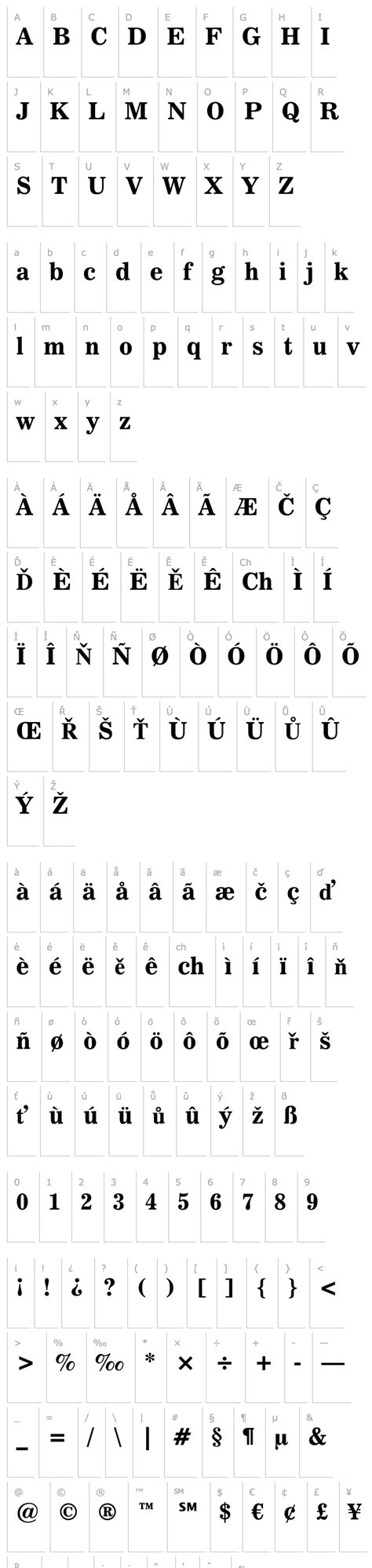
INews 706 BT Bold C Font: A Comprehensive Guide
Hey everyone! Today, we’re diving deep into the iNews 706 BT Bold C Font . This isn’t just any font; it’s a powerful tool that can dramatically change the look and feel of your projects. Whether you’re a graphic designer, a web developer, or just someone who loves to tinker with typography, understanding the nuances of a font like this is key. We’ll explore its characteristics, its best use cases, and how you can leverage its bold, distinctive style to make your content pop. Get ready to elevate your design game, guys!
Understanding the iNews 706 BT Bold C Font
The iNews 706 BT Bold C Font is, as the name suggests, a bold typeface. But what does ‘bold’ really mean in the context of fonts, and what makes this particular font stand out? Bold fonts are characterized by thicker strokes compared to their regular or light counterparts. This increased weight makes them highly visible and attention-grabbing. The ‘BT’ in the name often refers to a specific foundry or style, and ‘C’ might denote a character set or a variation. When we talk about the iNews 706 BT Bold C Font, we’re looking at a typeface designed for impact. Its substantial weight ensures that headlines, titles, and important call-to-actions are noticed immediately. This isn’t a font you’d typically use for long blocks of body text, as its boldness can make it tiring to read in large quantities. Instead, its strength lies in its ability to convey authority, strength, and importance. Think of it as the font equivalent of a booming voice in a quiet room – it commands attention. The design specifics, like the exact curvature of the letters, the spacing between them (kerning), and the overall x-height (the height of lowercase letters like ‘x’), all contribute to its unique personality. This font likely possesses strong, clear letterforms, making it highly legible even at smaller sizes when used strategically. Its boldness isn’t just about thickness; it’s about the presence it lends to any text. It can evoke a sense of modernity, sophistication, or even a retro feel, depending on the surrounding design elements. Understanding these fundamental characteristics is the first step in mastering its application. We’ll break down its aesthetic qualities and explore how to best harness its power.
Key Features and Characteristics
Let’s get down to the nitty-gritty of the iNews 706 BT Bold C Font . What makes it tick? First off, the boldness is its defining feature. This isn’t a subtle hint of weight; it’s a pronounced, confident stroke that demands attention. This makes it absolutely perfect for headlines, subheadings, logos, and any short bursts of text where you need maximum impact. Imagine a poster for a rock concert or a sale announcement – this font would nail it. Beyond the weight, we need to consider its design style . Is it a serif font with little feet on the letters, or a sans-serif font with clean, modern lines? The ‘BT’ and ‘C’ might hint at this, but generally, a bold font like this often leans towards a sans-serif style for a contemporary feel, though a bold serif can bring a classic, powerful vibe. We’ll assume for now it has a strong, clear structure. Another crucial aspect is legibility . Even though it’s bold, a well-designed font remains readable. The iNews 706 BT Bold C Font likely has well-defined letterforms and appropriate spacing to prevent it from becoming a blurry mass, especially when viewed on screens. The character set (‘C’ could refer to this) is also important. Does it include all the necessary punctuation, numbers, and special characters you need? A comprehensive character set ensures you can use the font across various applications without issues. The versatility of a bold font, while seemingly limited to impactful statements, can be surprising. It can be paired with lighter, more delicate fonts to create strong contrasts, or used in a monochromatic design to add depth and hierarchy. Think about its personality . Does it feel serious and professional, or more playful and energetic? This personality is shaped by the subtle curves, sharp edges, and overall proportions of the letters. Understanding these characteristics helps you choose the right font for the right job. We’re talking about a font that’s not just about looks, but about the message and feeling it conveys. It’s a tool that, when used correctly, speaks volumes without saying a word.
Where to Use the iNews 706 BT Bold C Font
Alright guys, now that we know what the iNews 706 BT Bold C Font is all about, let’s talk about where you can best put this beast to work. This font screams impact and visibility , so naturally, its prime real estate is anywhere you need to grab eyeballs instantly. Think headlines and titles for websites, blogs, magazines, and newspapers. When you want your article title or a key product name to jump off the page (or screen!), this bold font is your best friend. It creates an immediate focal point, guiding the reader’s eye exactly where you want it. It’s also fantastic for subheadings . Breaking up longer pieces of text with strong subheadings makes your content more scannable and digestible, and the iNews 706 BT Bold C Font does this job with authority. On the web , this font is a winner for call-to-action buttons (like “Buy Now!” or “Sign Up!”) and promotional banners . The boldness ensures these crucial elements aren’t missed, driving engagement and conversions. For branding and logos , a bold font like this can convey strength, reliability, and a modern aesthetic. Imagine a tech startup or a fitness brand using this font – it instantly communicates power and dynamism. Print design also benefits immensely. Posters, flyers, book covers, and packaging can all leverage the visual punch of the iNews 706 BT Bold C Font to make a strong first impression. It’s especially effective for event promotion – think concerts, festivals, or sporting events where you need energy and excitement. However, it’s crucial to remember its limitations. This isn’t your go-to font for lengthy paragraphs of text. Reading blocks of bold text for an extended period can be fatiguing for the eyes. So, use it wisely! Its magic lies in its strategic application. Pair it with a lighter, more readable font for body copy to create a beautiful typographic contrast. This interplay between bold and light, strong and subtle, is what creates professional and aesthetically pleasing designs. So, whether you’re designing a minimalist website or a high-energy print ad, the iNews 706 BT Bold C Font is a versatile powerhouse waiting to make your message unmissable.
Pairing the iNews 706 BT Bold C Font with Other Fonts
Okay, so you’ve got this awesome iNews 706 BT Bold C Font , and you know it’s great for making a statement. But here’s the kicker, guys: its real power often comes alive when you pair it with other fonts . Using just one font, even a great one, can sometimes feel a bit one-dimensional. The secret sauce to incredible typography is contrast . When you pair the bold, attention-grabbing iNews 706 BT Bold C Font with something more subtle, you create a visual hierarchy that guides the reader’s eye and adds a professional polish to your design. So, what kind of fonts work well with this bold character? Generally, you want to look for fonts that offer a distinct contrast. Clean, simple sans-serif fonts in a regular or light weight are often a fantastic choice. Think of fonts like Open Sans, Lato, or Montserrat (in their lighter variants). These fonts provide excellent readability for body text, allowing the iNews 706 BT Bold C Font to shine in headlines without competing for attention. The simplicity of the lighter font allows the boldness and personality of the iNews 706 BT Bold C Font to stand out even more. Another excellent pairing strategy is to use a classic serif font . While the iNews 706 BT Bold C Font might be modern and bold, a traditional serif font (like Garamond or Times New Roman, used judiciously) can add a touch of elegance and timelessness. This creates a dynamic contrast between modern boldness and classic sophistication. Just make sure the serif font you choose isn’t too ornate, or it might clash. For a more adventurous pairing, consider a script or handwritten font for accent text or small decorative elements. The contrast here is between the strong, structured boldness of the iNews 706 BT Bold C Font and the fluid, organic nature of a script. This can work well for invitations or special announcements, but use it sparingly to maintain clarity. The key principle is contrast in weight, style, and mood . Don’t pair two fonts that are too similar, or your design might fall flat. Always ask yourself: does this pairing enhance readability? Does it create visual interest? Does it help tell the story of my content? Experimentation is key here. Try out different combinations and see what feels right for your project. Remember, the iNews 706 BT Bold C Font is the star of the show for your key messages; the supporting fonts should complement, not compete. Get creative, guys, and watch your designs transform!
Tips for Optimal Use and Legibility
Alright, fam, we’ve covered a lot about the iNews 706 BT Bold C Font , from its features to how to pair it. Now, let’s nail down some pro tips to ensure you’re using it like a total boss and keeping things super legible. First things first: respect the boldness . This font is loud and proud, so don’t try to shout over it with more boldness. Use it for emphasis, not for everything. Overusing it, especially for body text, is a surefire way to make your content unreadable and give your audience a headache. Think of it like a spice – a little goes a long way to add flavor; too much and it’s inedible! Seriously, guys, resist the urge to make everything bold. Secondly, consider your medium . Is it a giant billboard? A tiny smartphone screen? The iNews 706 BT Bold C Font might look killer on a large print ad, but on a small mobile interface, it might become clunky or even unreadable if the design isn’t optimized. Always test your design across different devices and sizes to ensure legibility. Web designers, pay attention! Ensure your CSS is correctly rendering the font and its weight. Another crucial tip is kerning and tracking . Kerning is the space between specific pairs of letters (like ‘AV’), while tracking is the overall letter spacing in a word or line. Even the best bold font can look awkward if the spacing is off. You might need to manually adjust the kerning for headlines using this font to make them look perfectly balanced and professional. Don’t just let the default settings rule your life! Hierarchy is your friend . Use the iNews 706 BT Bold C Font strategically to establish a clear visual hierarchy. Your main headlines should be the most prominent, followed by subheadings, and then your body text. This font is perfect for that top tier. Using it for secondary points can dilute its impact. Contrast is key , remember? Pair it with a lighter, highly readable font for your body copy. This contrast not only improves readability but also makes the bold font pop even more. It’s like a spotlight on your most important information. Finally, know your audience . While this font can convey power and modernity, would it fit the tone of a gentle children’s story? Probably not. Understand the message and the audience you’re trying to reach, and ensure the font choice aligns with that. By following these tips, you can harness the full potential of the iNews 706 BT Bold C Font, making your designs impactful, professional, and a joy to read. Go forth and design awesomely!
Conclusion: Unleash the Power of Bold Typography
So there you have it, folks! We’ve taken a deep dive into the iNews 706 BT Bold C Font , exploring its robust characteristics, ideal use cases, and how to skillfully pair it with other typefaces. This font isn’t just about making text bigger or thicker; it’s about making a statement . It’s a tool that, when wielded correctly, can transform your designs from ordinary to extraordinary. Remember, the boldness of the iNews 706 BT Bold C Font is its superpower, making it perfect for capturing attention in headlines, logos, calls-to-action, and any element that needs to command immediate notice. But like any powerful tool, it requires finesse. Strategic application is key. Avoid using it for lengthy text blocks, and always prioritize legibility. The magic truly happens when you understand how to create contrast . Pairing this bold font with lighter, cleaner typefaces allows it to shine while ensuring your content remains accessible and easy to read. Think of it as a dynamic duo – the bold font grabs the spotlight, and its partner provides the smooth, readable foundation. We’ve armed you with the knowledge to use it effectively, from understanding its core features to optimizing its legibility through careful kerning and hierarchy. Now it’s your turn to experiment and create! Don’t be afraid to push the boundaries and see what amazing things you can achieve. Whether you’re designing a website, a marketing campaign, or a personal project, the iNews 706 BT Bold C Font is ready to add that extra punch and professionalism you’re looking for. Go out there, guys, and make your designs bold !